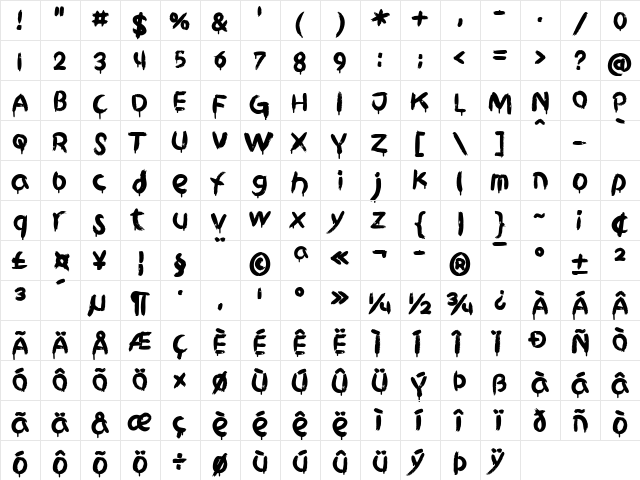
Griphite Drop Black PERSONAL Regular
Design Context for Griphite Drop Black PERSONAL Typeface
Griphite Drop Black PERSONAL is a composed and adaptable typeface that performs quietly and consistently across a wide range of design contexts.